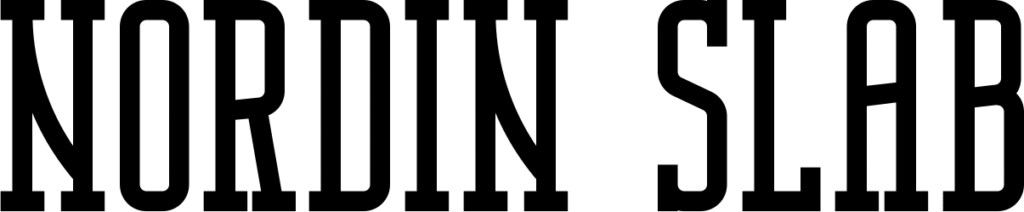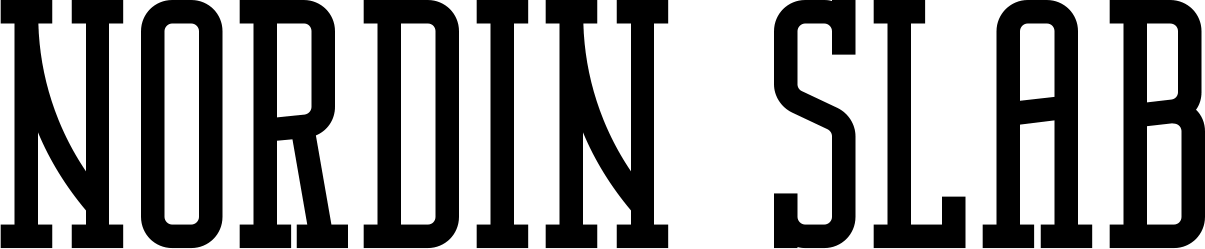
Nordin Slab Font
Be sure it is worth looking at the fascinating traits of this Nordin Slab font that comes in two different styles. Its tall, classic, and clean letterforms make it a superior alternative to submitting a satisfactory writing effect.
Inspired by the vibes of retro font and serif style, its square-end design can bring traditional moods back in many posters, movies, packaging, etc. Although it’s only available in uppercase, it will be thriving to get nice feedback from vintage fans.